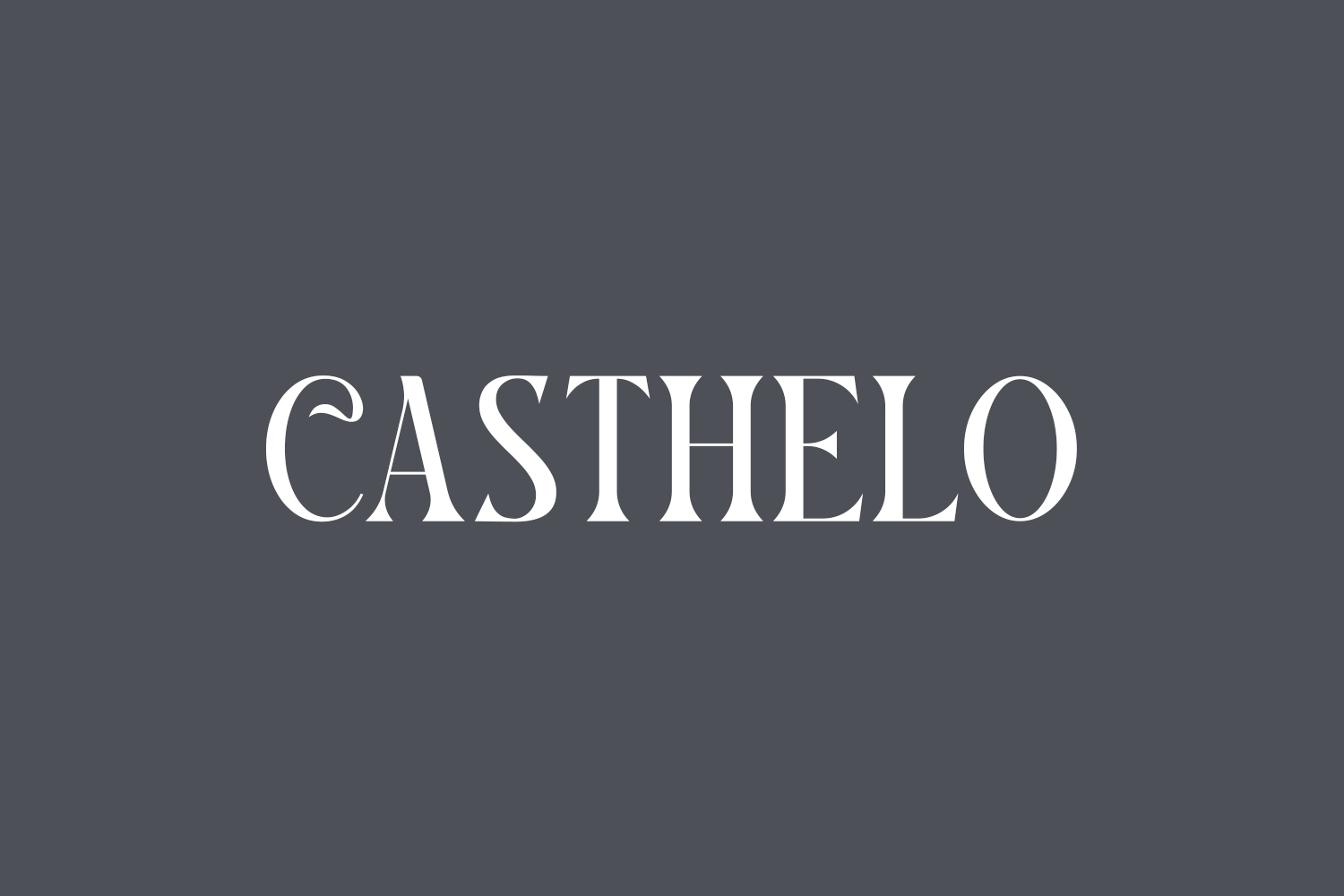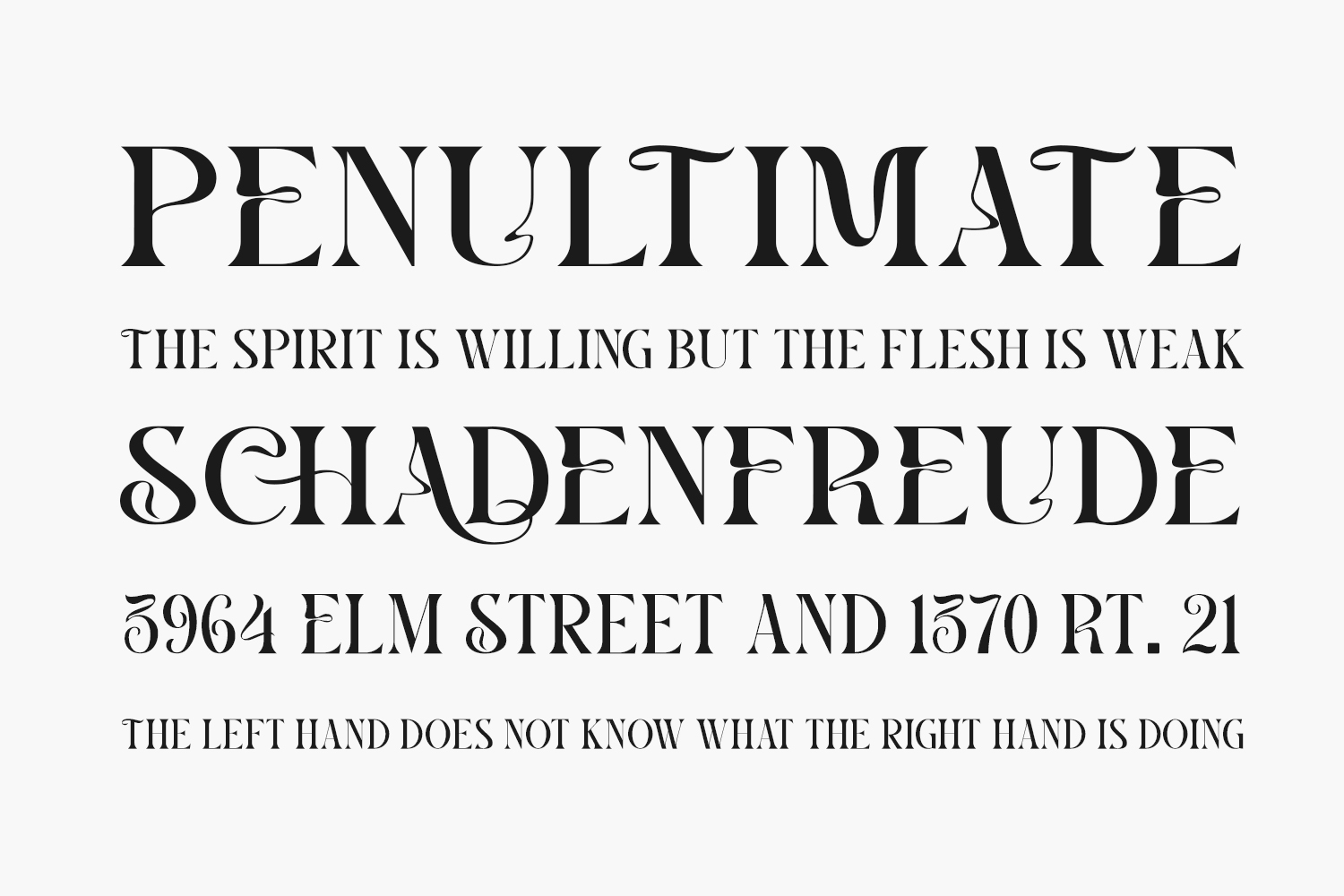
Casthelo Free Font is a serif modern and classic typeface that has its own unique style & modern look. This typeface is perfect for an elegant & luxury logo, book or movie title design, fashion brand, magazine, clothes, lettering, quotes, and so much more. Casthelo Free Font is free for personal use only. Please purchase the full version for commercial use.